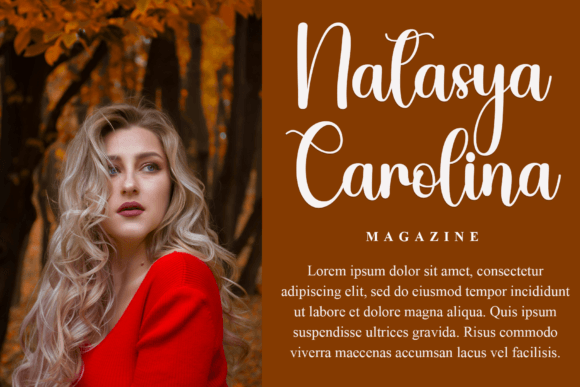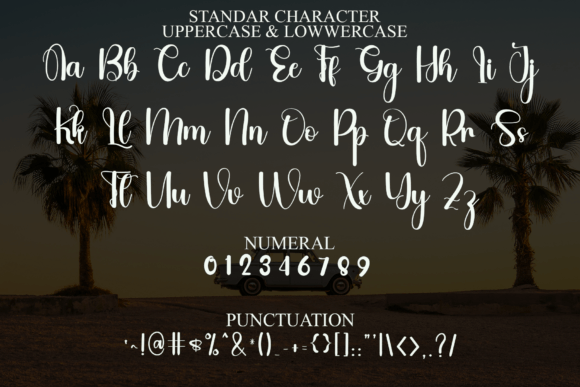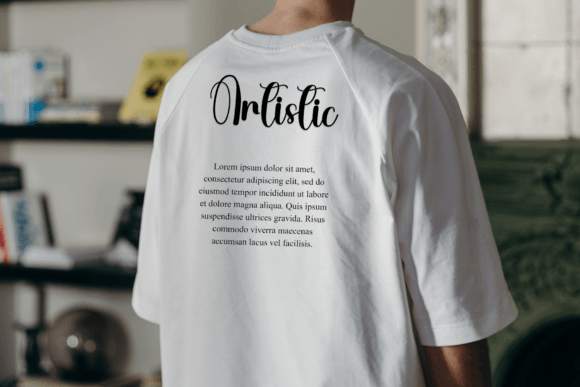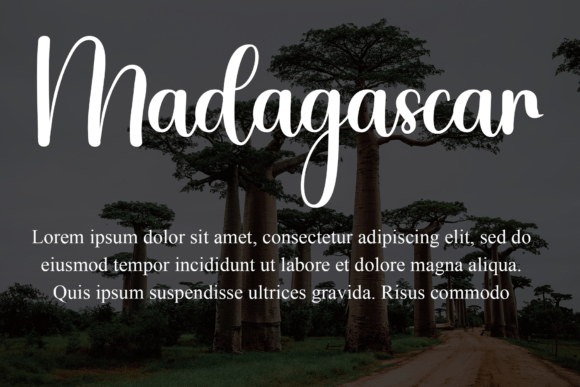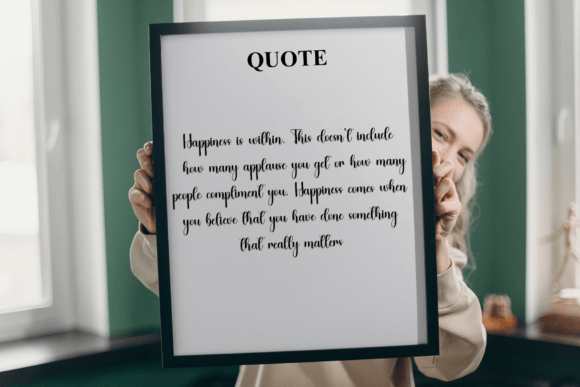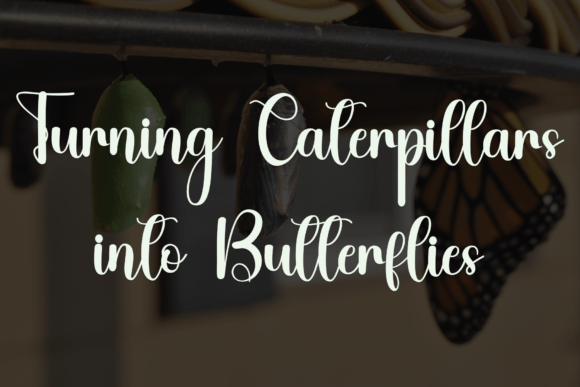
Introducing Change Font: Elevate Your Designs with a Timeless Handwritten Style
Are you on the lookout for a font that can add a touch of elegance and personality to your designs? Look no further than Change Font, a lovely and timeless handwritten font that is sure to make your creations stand out. Whether you’re a designer, crafter, or simply someone who loves to dabble in creative projects, Change Font is an excellent choice for creating eye-catching logos, branding, and quotes.
What Makes Change Font So Special?
Every letter in Change Font has a unique and beautiful touch that will make your design come alive. The font’s handwritten style is both classic and modern, making it versatile enough to be used in a wide range of projects. From logos and branding to quotes and social media graphics, Change Font is the perfect choice for anyone looking to add a personal touch to their designs.
One of the standout features of Change Font is its PUA (Private Use Area) encoding. This means that you can access all of the amazing glyphs and ligatures with ease, giving you even more creative freedom to experiment with different styles and effects. Whether you’re looking to create a bold and statement-making design or something more subtle and understated, Change Font has got you covered.
The Benefits of Using Change Font
So why should you choose Change Font for your next project? Here are just a few benefits of using this amazing font:
- Elegant and timeless design: Change Font has a classic, handwritten style that will never go out of fashion.
- Versatile: Use Change Font for logos, branding, quotes, and more.
- Easy to use: With PUA encoding, you can access all of the font’s glyphs and ligatures with ease.
- Unique and beautiful touch: Every letter in Change Font has a special something that will make your design stand out.
How to Use Change Font in Your Designs
- Logos and branding: Create a professional and cohesive brand identity with Change Font.
- Quotes and social media graphics: Add a personal touch to your quotes and social media graphics with Change Font’s elegant and timeless style.
- Invitations and stationery: Use Change Font to create beautiful and eye-catching invitations and stationery.
Tips and Tricks for Getting the Most Out of Change Font
Here are a few tips and tricks for getting the most out of Change Font:
- Experiment with different colors and textures: Change Font looks great in a variety of colors and textures, so don’t be afraid to get creative.
- Use it with other fonts: Change Font pairs well with other fonts, so try combining it with different styles to create a unique look.
- Play with glyphs and ligatures: With PUA encoding, you can access all of Change Font’s glyphs and ligatures. Experiment with different combinations to add visual interest to your designs.
If you’re looking for a font that can add a touch of elegance and personality to your designs, look no further than Change Font. With its timeless handwritten style, PUA encoding, and unique and beautiful touch, Change Font is the perfect choice for designers, crafters, and anyone who loves to dabble in creative projects. So why wait? Download Change Font today and start elevating your designs to the next level.